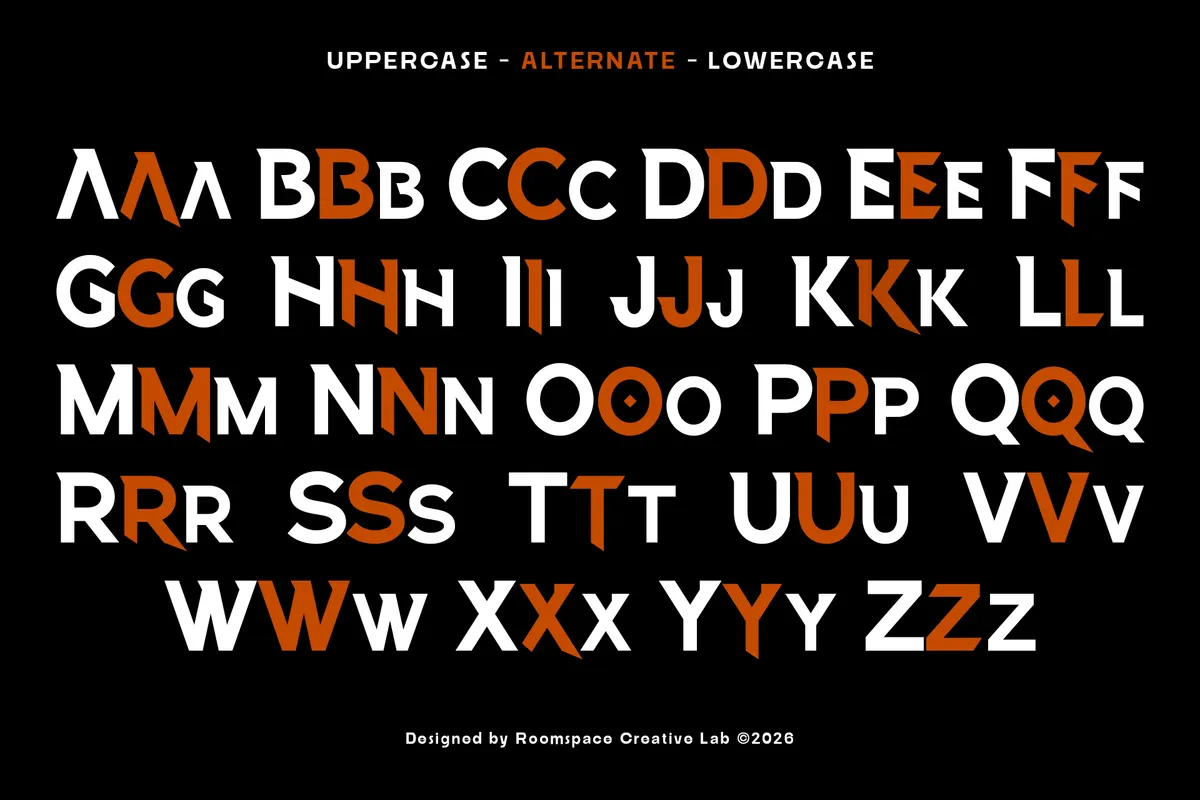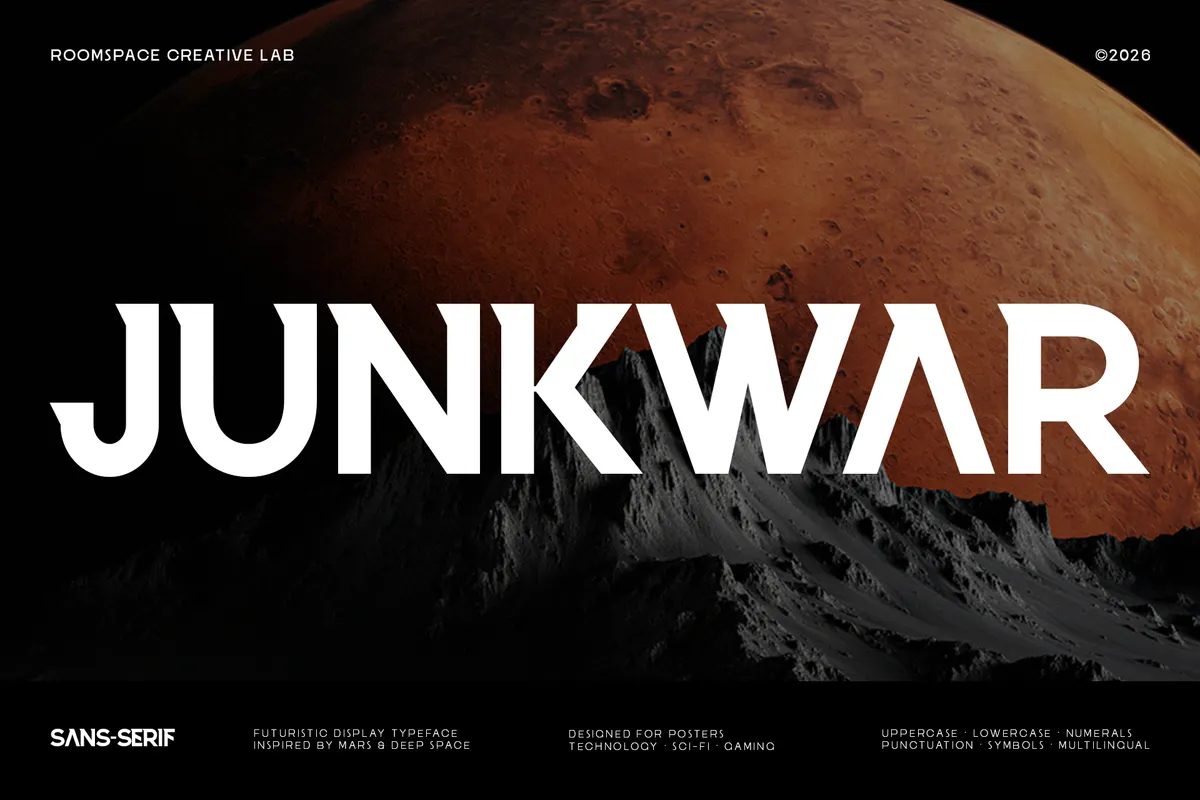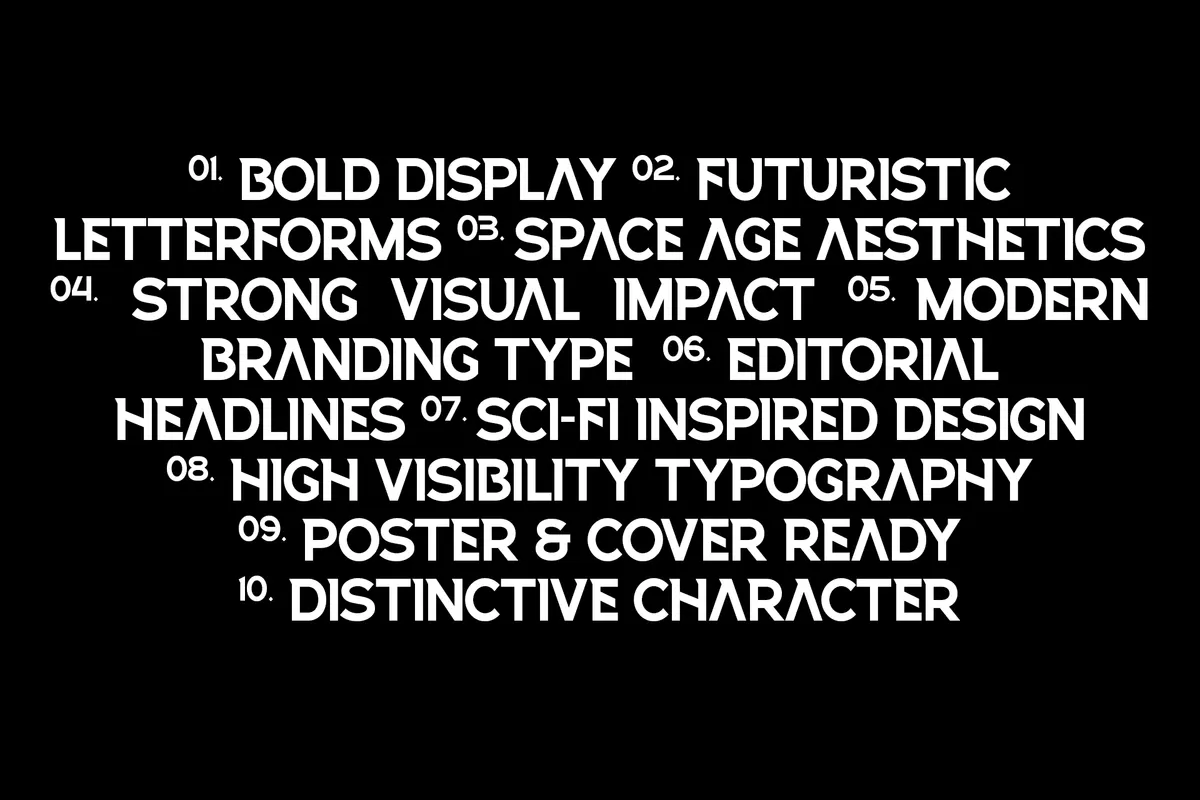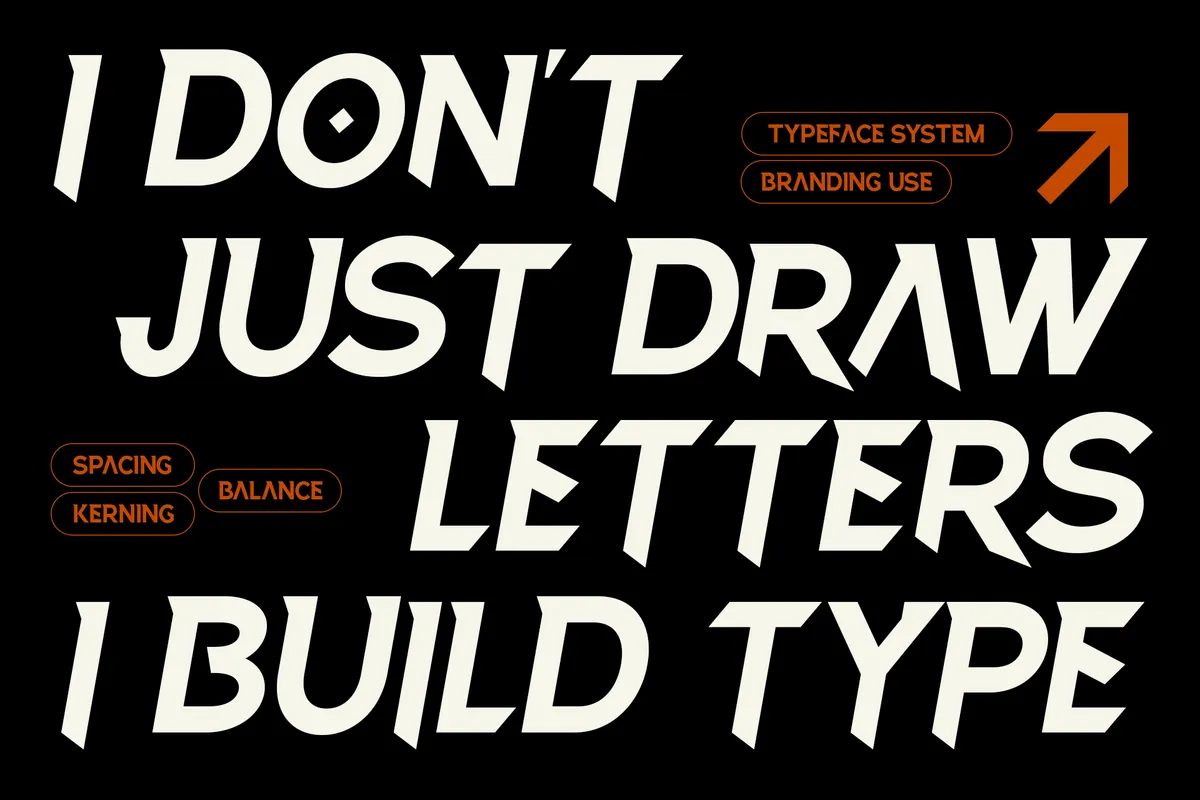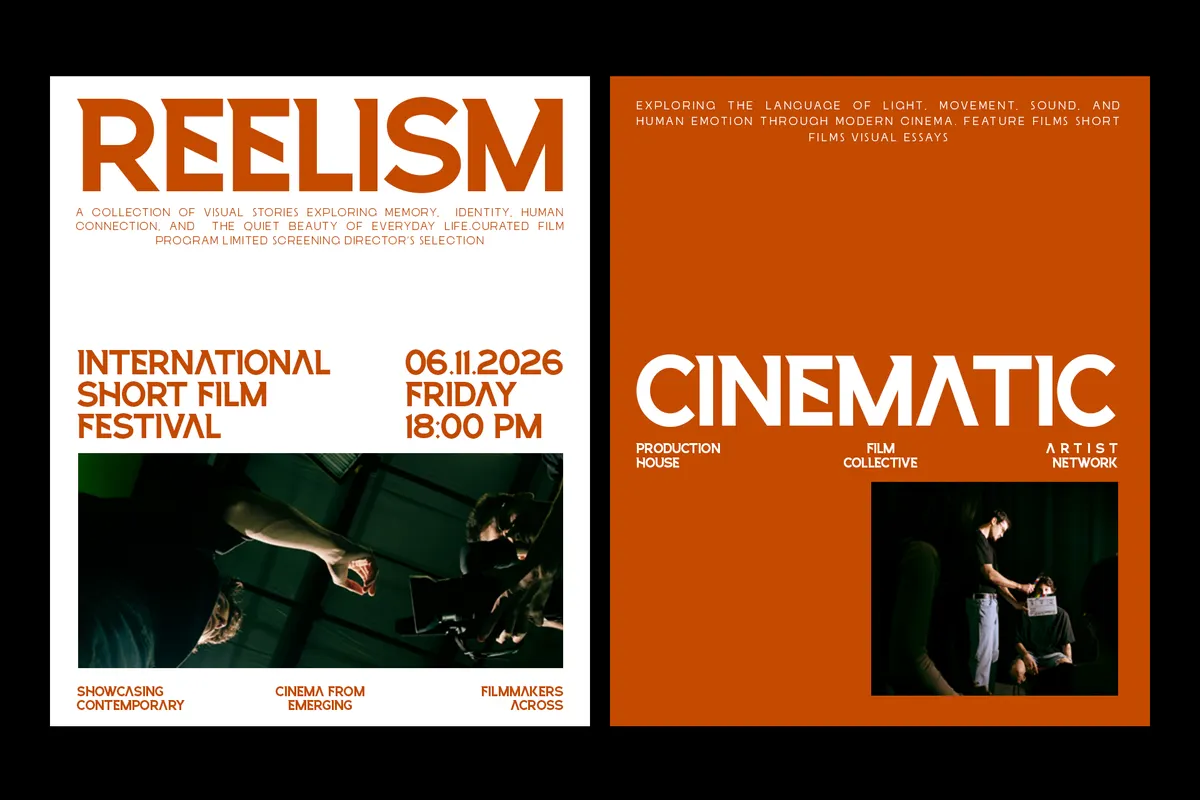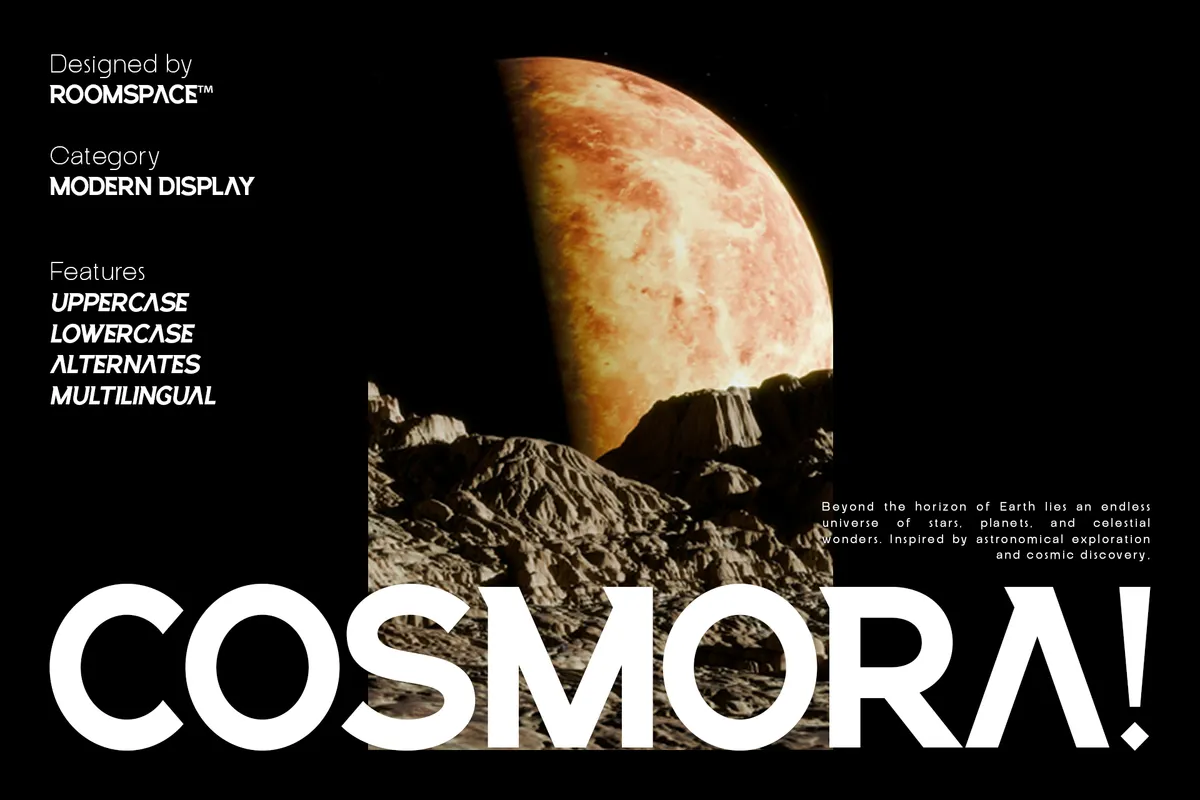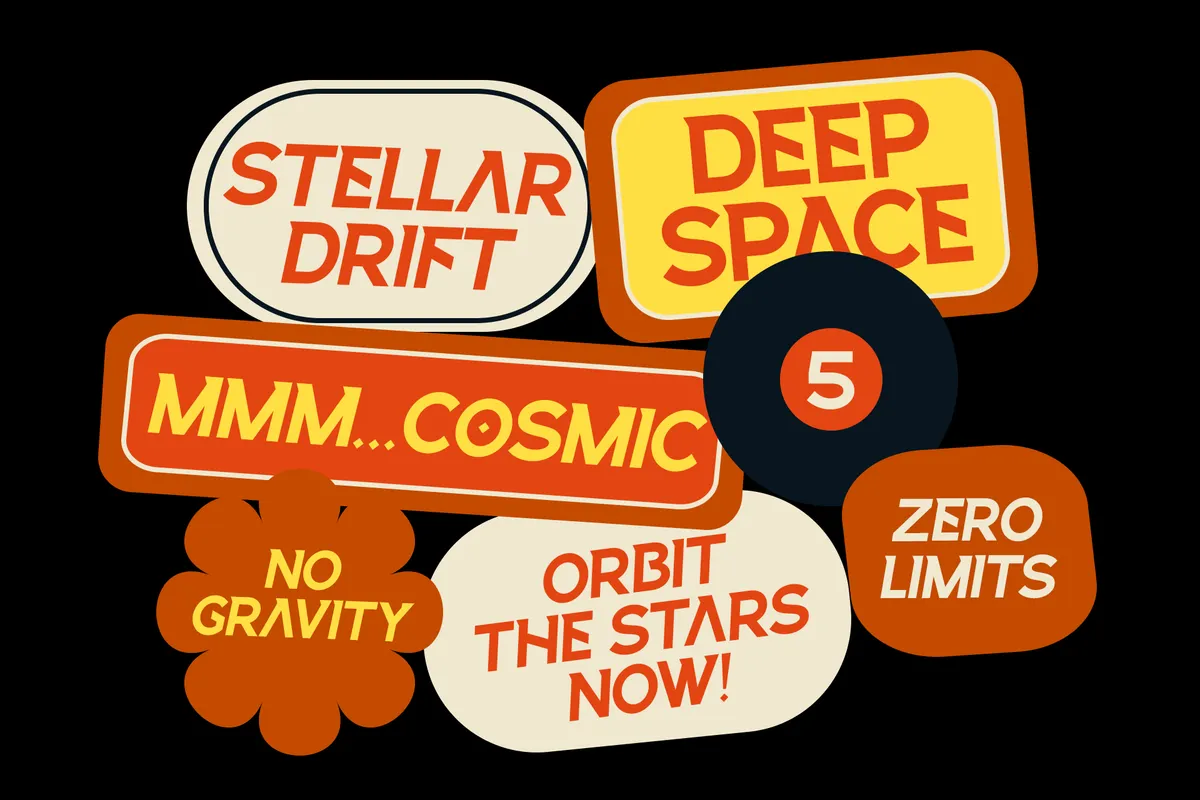
Junkwar - Futuristic Display Font
Junkwar is a futuristic display font whose capitals are cut on the diagonal, as though each letter had a corner sheared off by something passing at speed. The construction underneath is plain geometric sans — circular O, flat-sided H, monolinear weight — and the angular cuts sit on top of it as a second layer.
Eighteen alternate capitals let a word be tuned letter by letter, so a wordmark does not repeat the same sliced corner twice. Use it for game titles, film festival posters, tech logos, album covers, esports branding, sci-fi book jackets, streaming key art, and event banners.
- 18 alternate capitals via stylistic alternates;